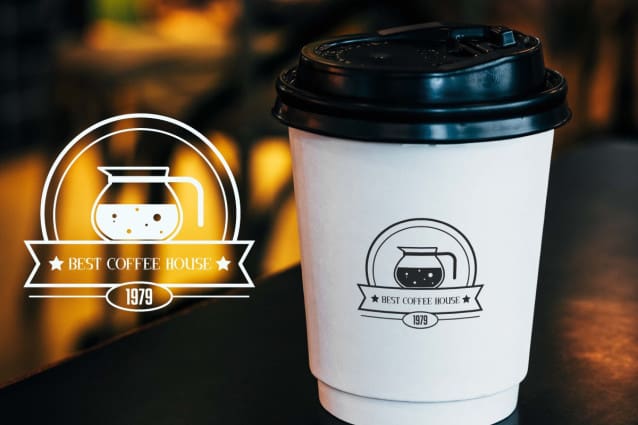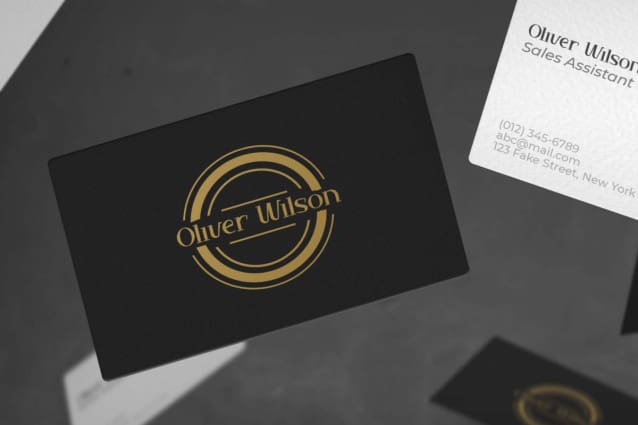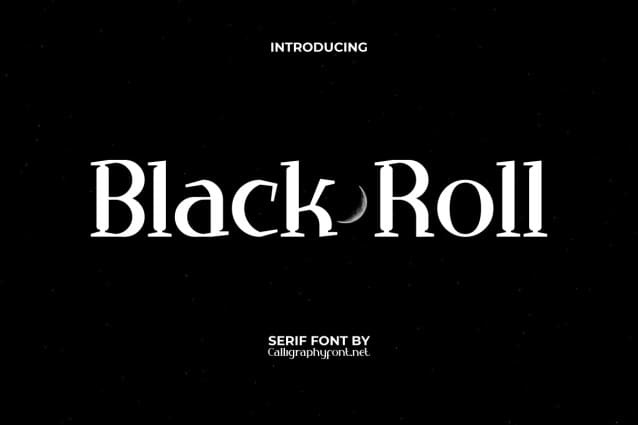
Black Roll Font
Black Roll Font is a stylish serif display font with mysterious feels. The thickness of the line make it look bold and adds a modern impression from the short lines at the ends of the letters, making it awesome for any project, such as billboard, brand image, cover, custom design, flyer, invitation, label, menu, packaging, poster, screen print, signage, social media post, stationery, sticker, thank you card, title, website, and many more!
Black Roll Font It can complement every type of design you create, so many industries use it, such as accessories, advertisement, café, content creator, event organizer, fashion, fast food, graphic design, handicraft, homeware, musician, photography, printing, publishing, etc.